Looking for the best robot fonts? You can design science-related promotion templates by using these files. You can design futuristic and sci fi designs for your clients by using these fonts. Using these files you can create a science fiction poster for your business. You can change the color and swashes of the characters to design a customized flyer/poster for your need. You can also create website headers and promotional templates for your science club by using these fonts.
In this article, we have collected some of the best fonts from different websites. Some of the best files in the article are futuristic robots, blocky fonts, digital fonts, sci-fi fonts, and military fonts. You can create the best advertising posters and flyers by using these fonts. You can use these files with Adobe Illustrator and Adobe Photoshop to edit the print templates. You can select the best font from the below collection to design the promotional templates.
Futuristic Robot Comic Fonts
- You get these fonts with Uppercase characters and numbers to design your desired print templates.
- You will be able to design text and numbers by using these fonts.
- You can create your own logos, labels, posters, magazine designs and packaging designs.
Blocky Robotic Fonts
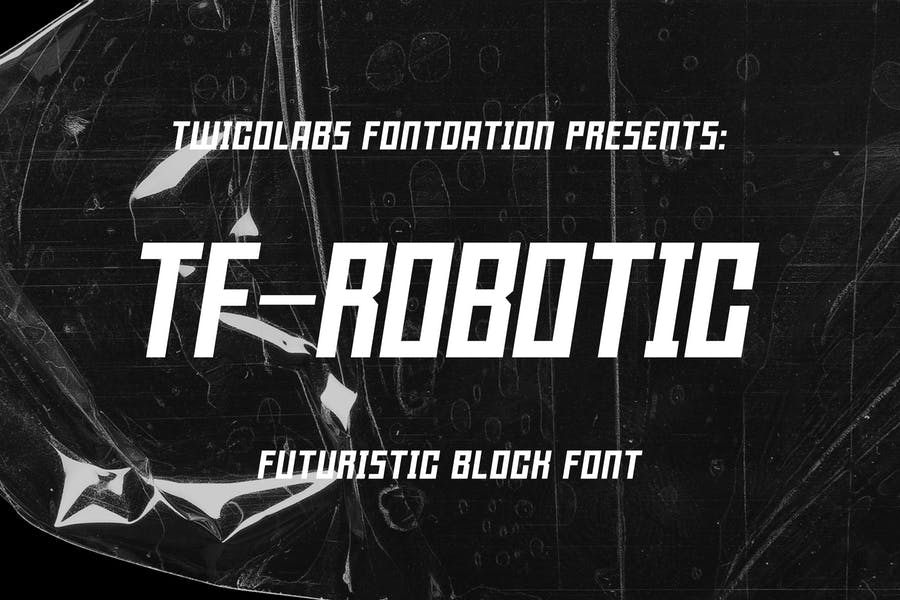
- This is a bold robotic fonts for designing futuristic designs for your clients.
- Give a clean and modern look to the design by using these fonts.
- You can design the packaging templates and movie designs by using these fonts.
Creative Futuristic Robot Font
- If you are looking to design an innovative and futuristic template for your client then these fonts are perfect for you.
- In this pack you get both uppercase and lowercase characters along with the numbers.
- This is a very stylish looking font for designing futuristic designs.
- Give a long interval between the characters to design futuristic flyers and posters.
Creative Digital Font Download
Minimal Sci Fi Fonts
Lettering and Logo Font Download
Unique Robot Typeface
Robotic Military Fonts
Creative Robotic Fonts
Futuristic Digital Font Family
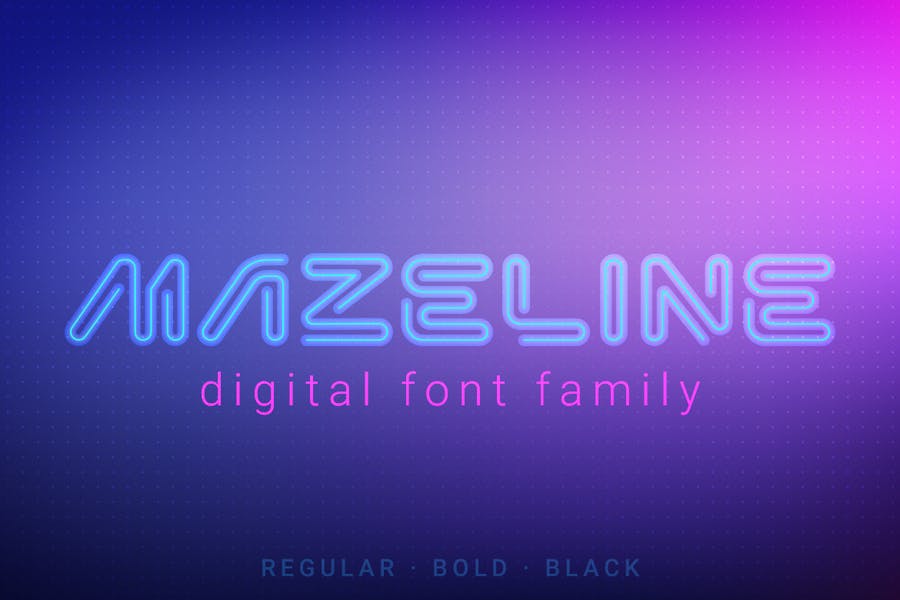
Linear Futuristic Font Duo
Font For Futuristic Logo
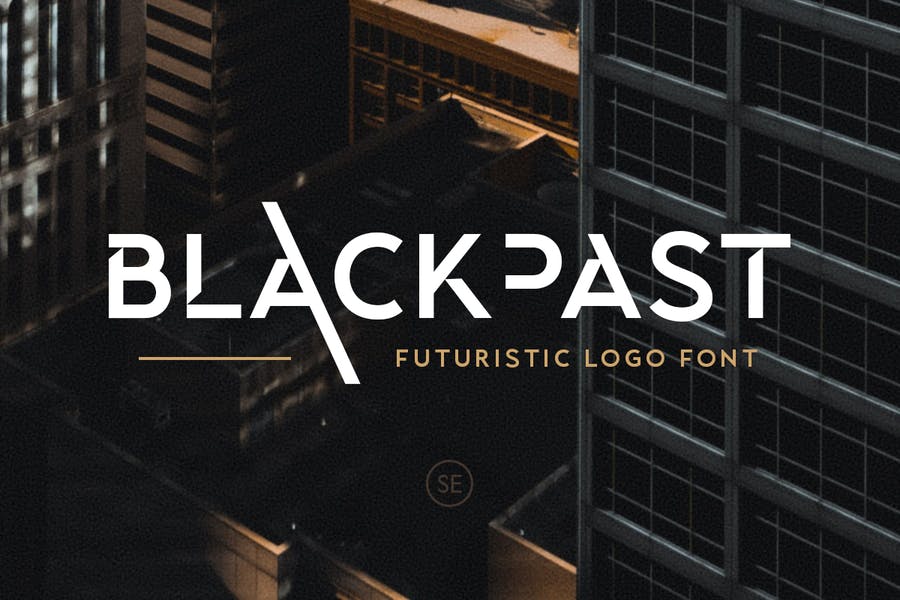
3D Layered Robot Display Fonts
Game Style Robot Font
Futuristic Display Typeface
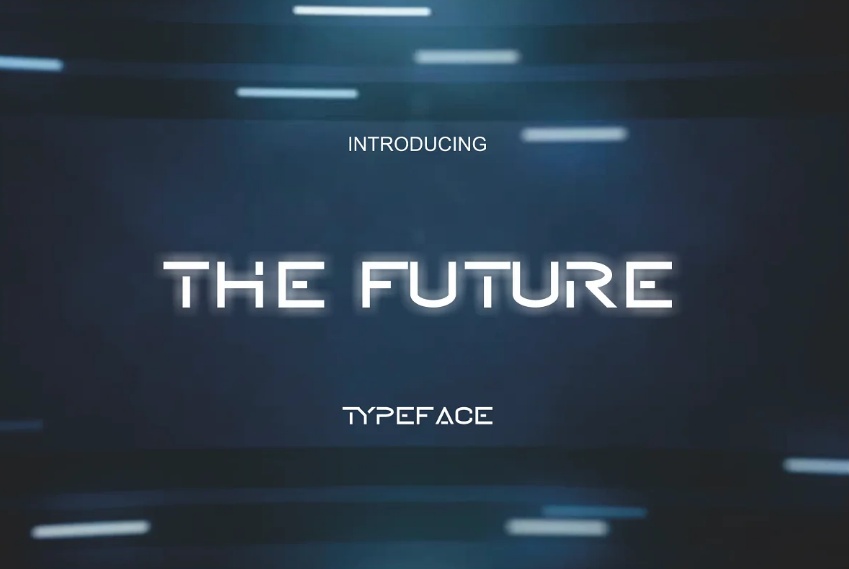
Funny Block Display Font
Futuristic Tech Fonts
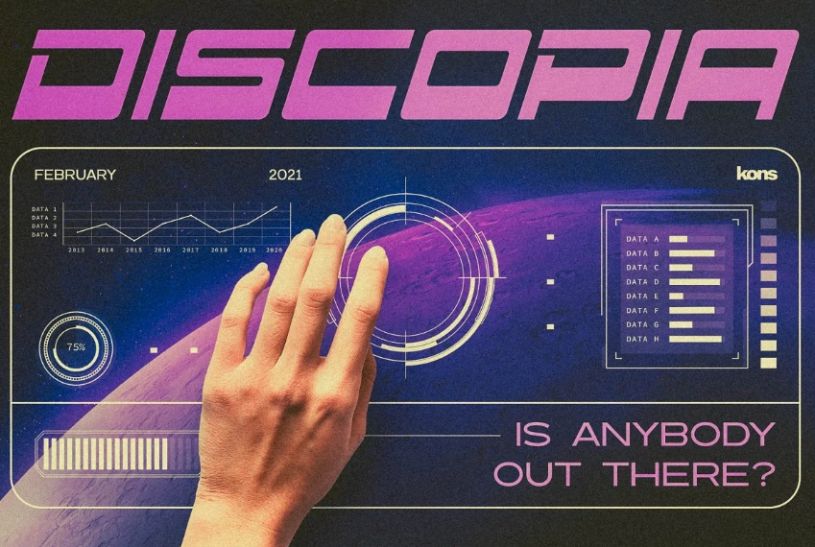
Modern and Edgy Robot Font